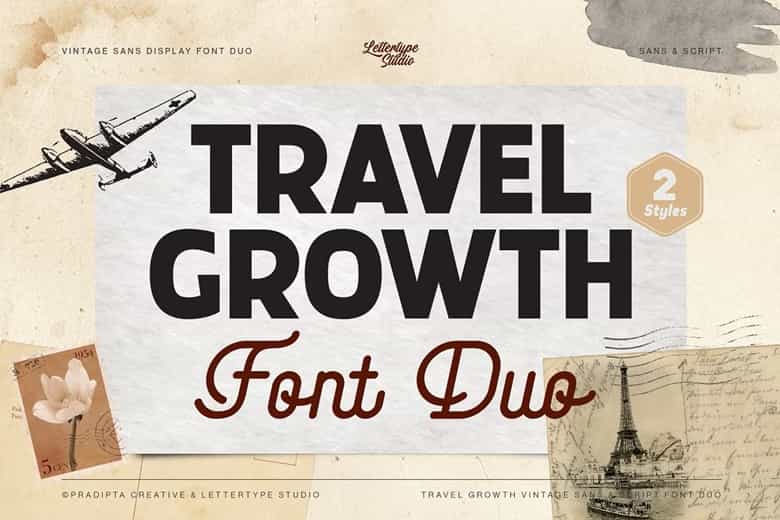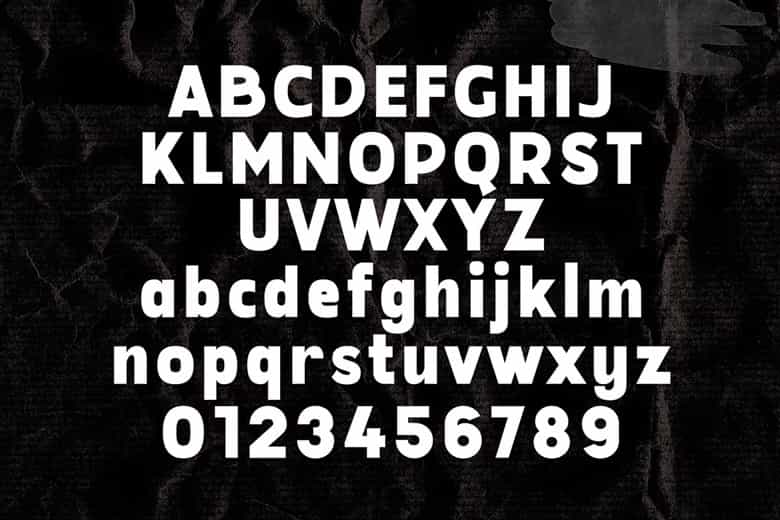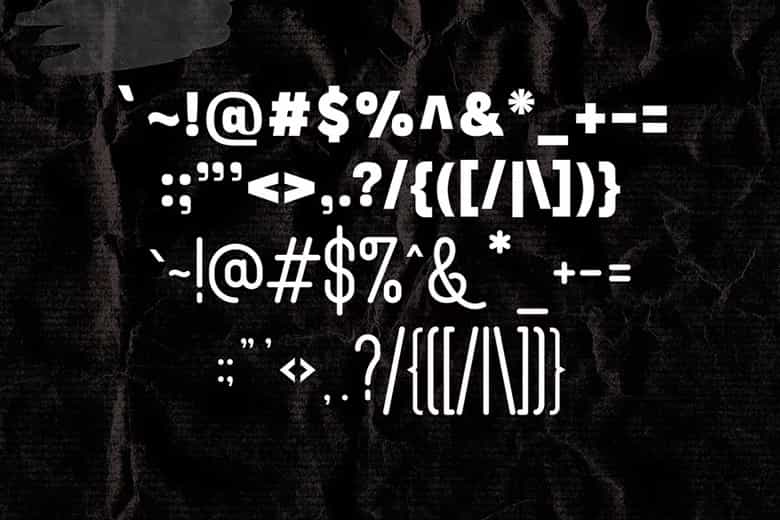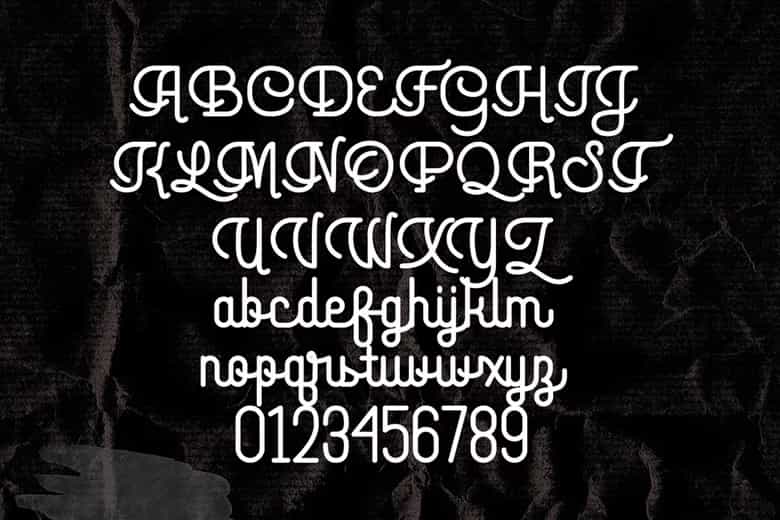
Travel Growth Duo Font
Travel Growth Vintage Font Duo is inspired by travel poster type of 20th century rounded script with large x-height and Art Nouveau elegant look sans serif hint, in a package two complement each other. Readable and versatile, robust and bold personality enhances its contemporary appeal. This pair of fonts are designed with the intention of having a vintage, elegant, bold, powerful and very versatile set for designers, marketers and creatives.